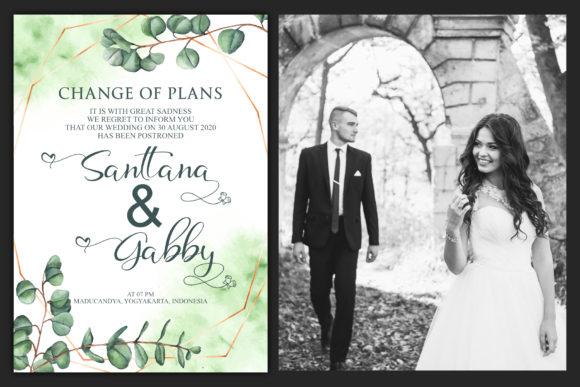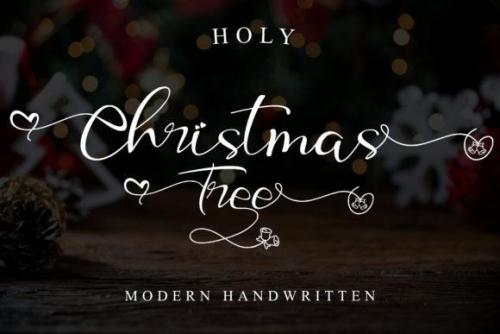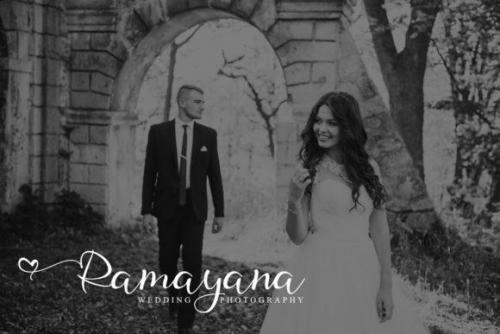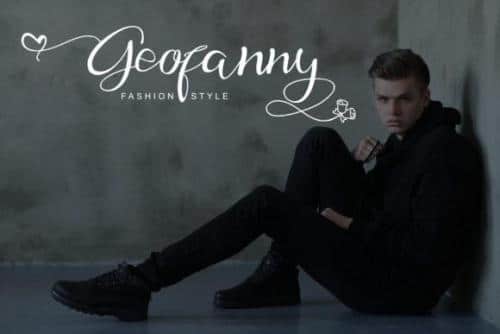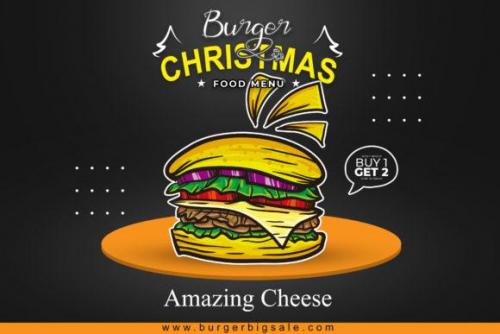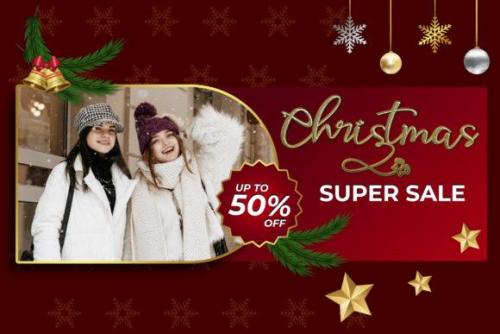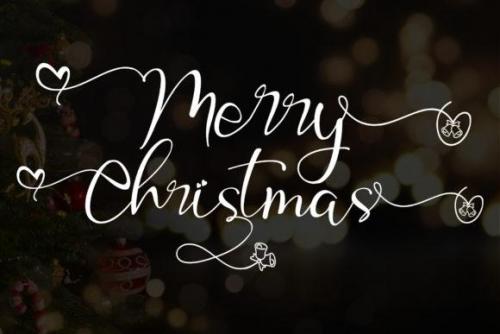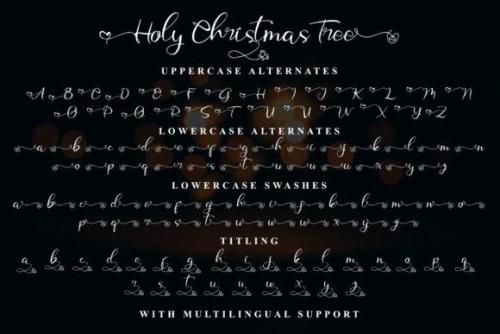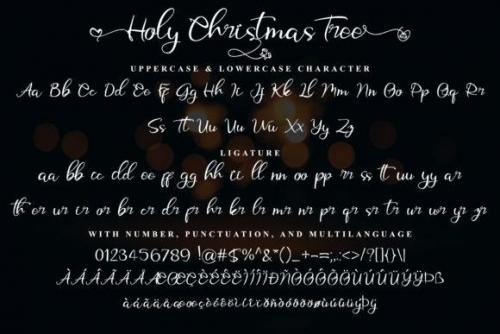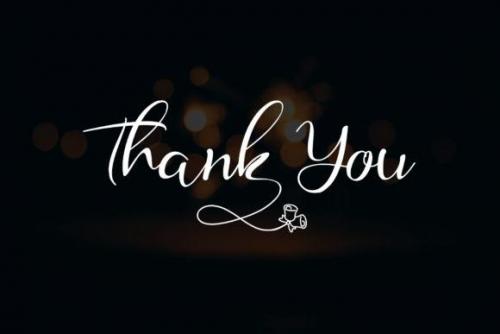
Holy Christmas Tree is a beautiful and natural handwritten font. It is ideal for holiday-themed greeting cards and for any crafting project that requires a romantic touch.
This font is PUA encoded which means you can access all of the glyphs and swashes with ease!